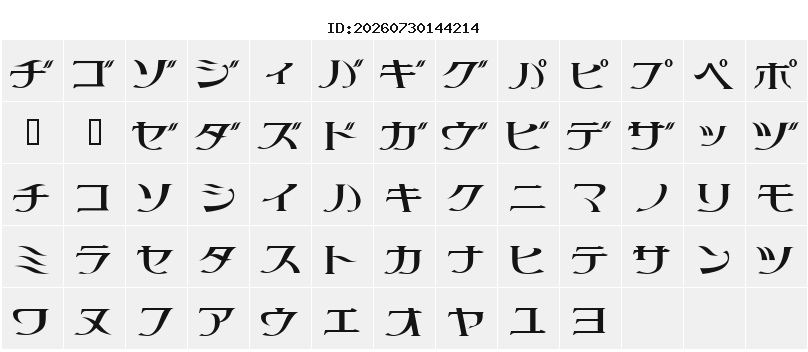
littlepig Preview
• Font Name: littlepig
• Full Font Name: littlepig
• PostScript Name: Littlepig
About littlepig.ttf
littlepig.ttf is a modern, elegant sans-serif font designed for ultimate readability and visual harmony. Perfect for branding, headlines, web design, and print materials.